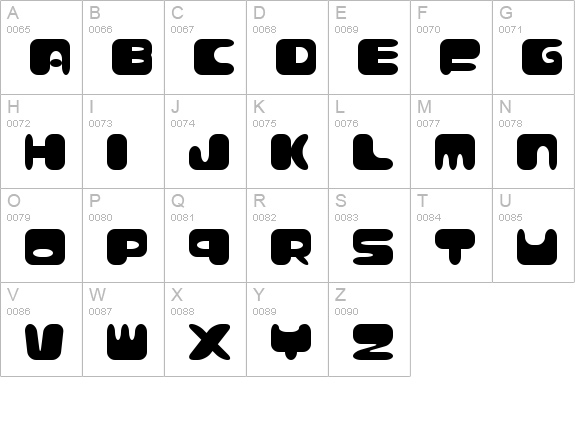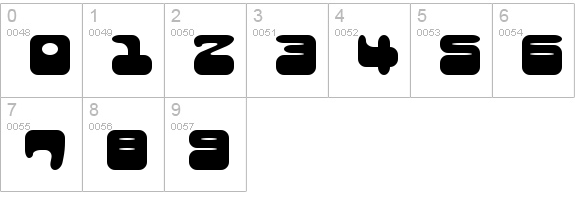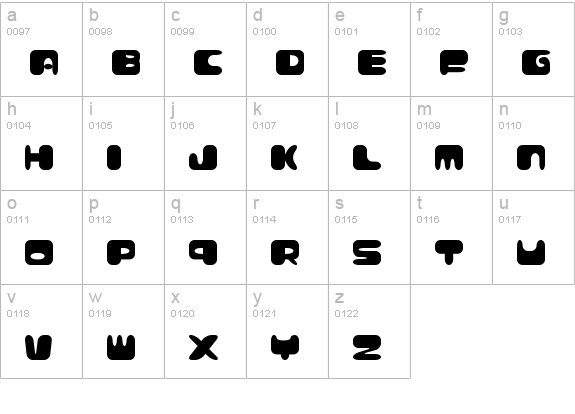
I2Viï¿¿amintableï¿¿ E Font Details
Introducing the stunning and unique I2Viï¿¿amintableï¿¿ E font, a true masterpiece in the world of typography. With its eye-catching design and intricate details, this font is sure to captivate and inspire creativity in its users. I2Viï¿¿amintableï¿¿ E font is not only visually appealing, but it also boasts a wide range of versatility, making it suitable for a myriad of design projects. Whether you're working on a logo, branding, packaging, or any other creative endeavor, this font will effortlessly elevate your work to new heights. One of the most remarkable features of I2Viï¿¿amintableï¿¿ E font is that it is freely available to download at FontsMarket.com. Yes, you read that right! This extraordinary font can be yours without spending a single penny. FontsMarket.com is a trusted source for high-quality fonts, and they are delighted to offer this gem to designers, artists, and enthusiasts alike. The I2Viï¿¿amintableï¿¿ E font is crafted with utmost precision and attention to detail, ensuring that each character is flawless and visually appealing. The smooth lines, elegant curves, and unique letterforms of this font will undoubtedly make a lasting impression on anyone who encounters it. Whether you're aiming for a modern and sleek look or a more vintage and nostalgic vibe, I2Viï¿¿amintableï¿¿ E font has got you covered. Its versatility allows it to adapt effortlessly to any design style, making it a must-have in every creative's toolkit. So why wait? Don't miss out on the opportunity to enhance your designs with the striking I2Viï¿¿amintableï¿¿ E font. Head over to FontsMarket.com and download it for free today. Unlock the limitless possibilities and let your creativity soar with this remarkable font.